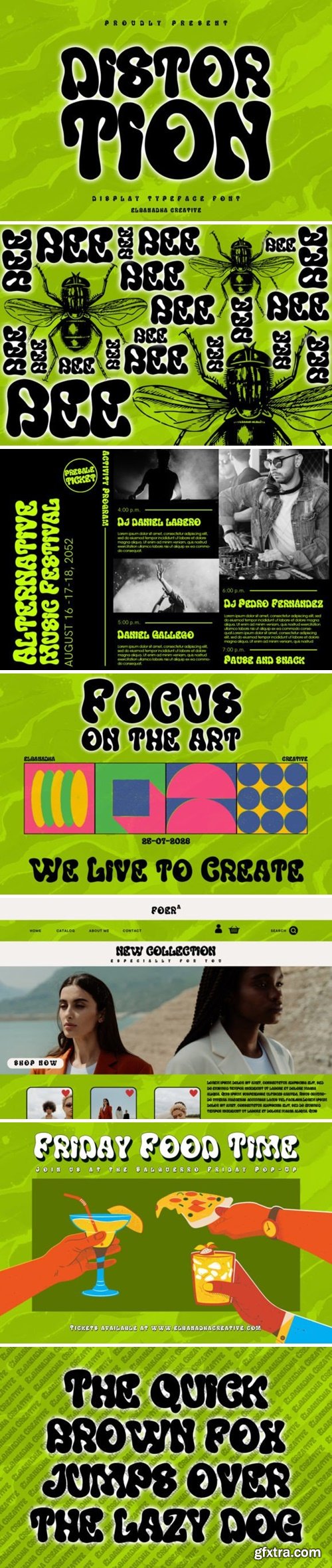
变形字体
Distortion is a cute and quirky display font. It will add an incredibly joyful touch to your designs. Add this beautiful display font to each of your creative ideas and notice how it makes them stand out!